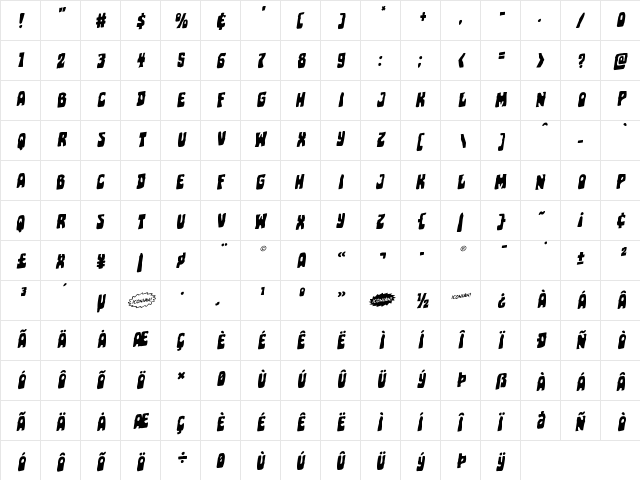
Pocket Monster Staggered Rotalic Italic
Design Context for Pocket Monster Staggered Rotalic Typeface
Pocket Monster Staggered Rotalic is a composed and adaptable typeface that performs quietly and consistently across a wide range of design contexts. The slanted form adds forward momentum and visual energy.
Pro Tip: Use Pocket Monster Staggered Rotalic for emphasis, pull quotes, and subheadings where its slanted energy can add rhythm to the layout.